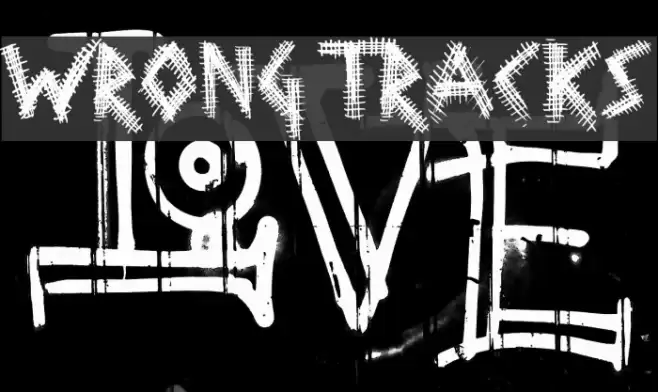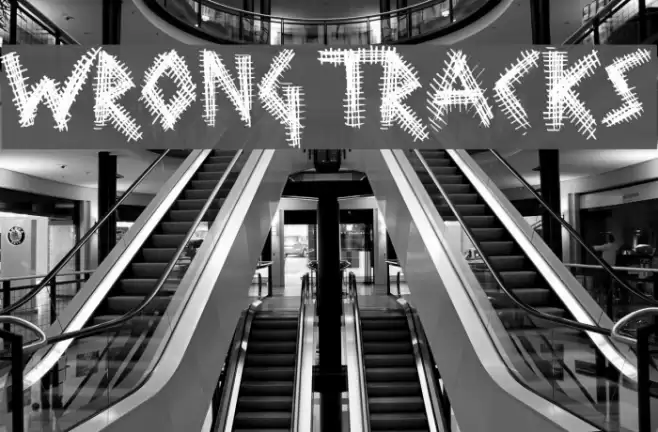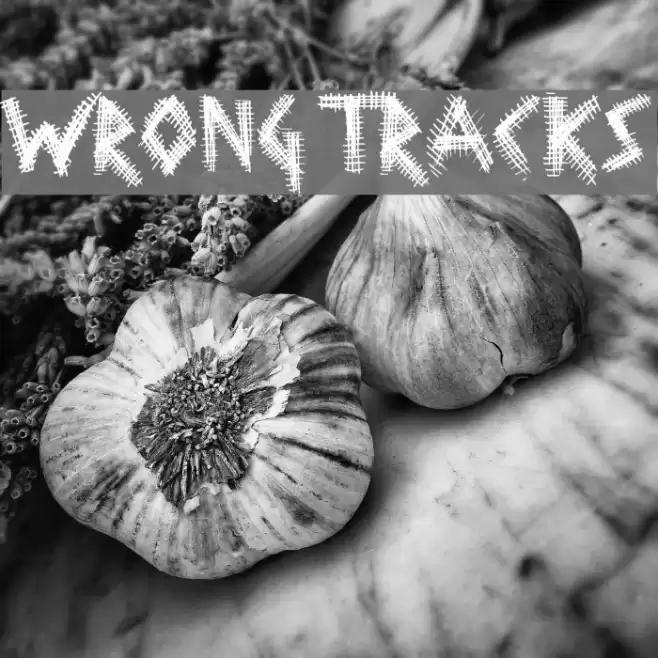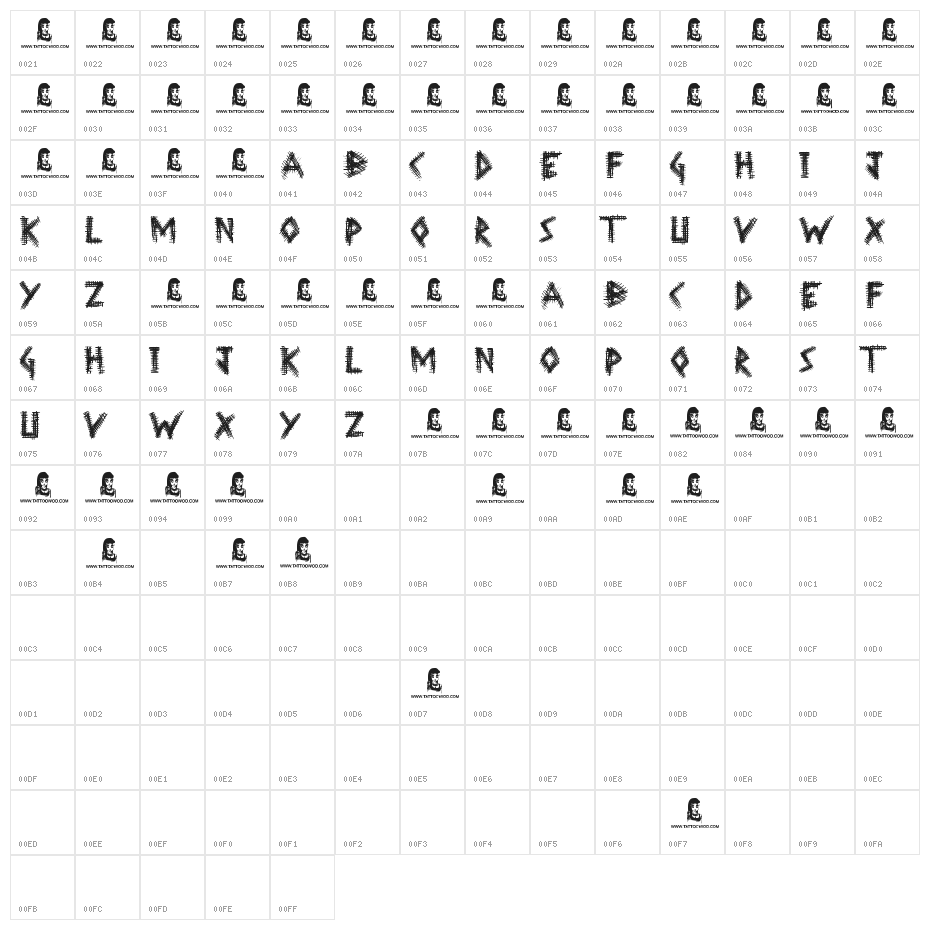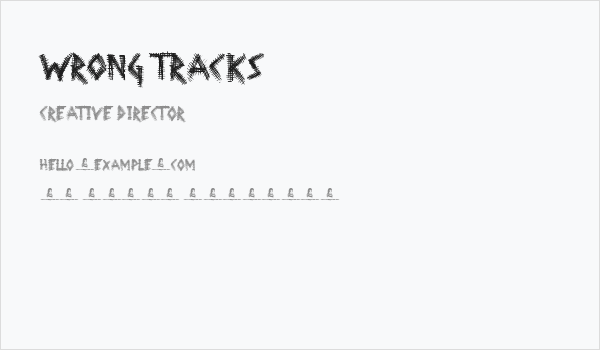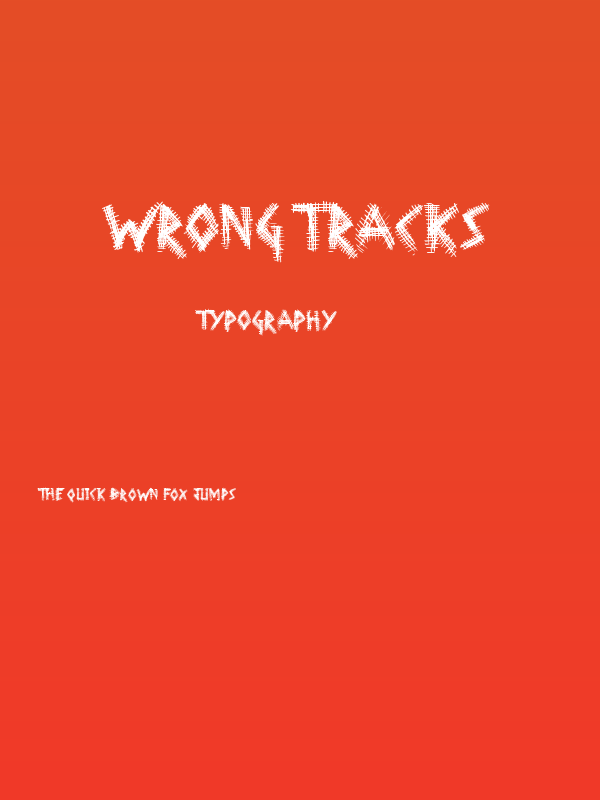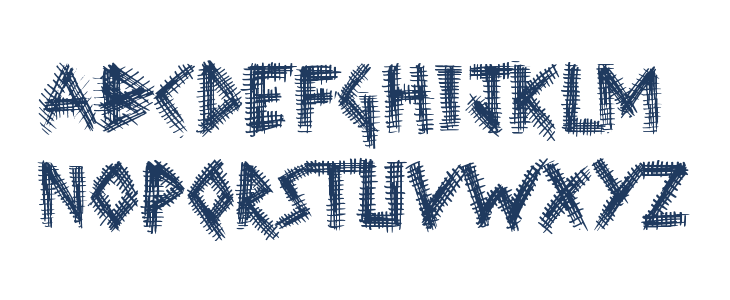
Wrong Tracks Font
Wrong Tracks Description
This font features a highly decorative and textured design, characterized by a crosshatch pattern that gives each letter a unique, rugged appearance. The strokes are bold and uneven, creating a sense of movement and energy. The letters are uppercase, with a consistent height and width, but the intricate detailing within each character sets them apart. The font's style is reminiscent of hand-drawn sketches, making it suitable for projects that require a raw, artistic touch. It is not suitable for body text due to its complexity but can make a striking impact in headlines or logos.
A bold, textured font with a crosshatch design, ideal for artistic and impactful headlines from Uncategorized fonts.